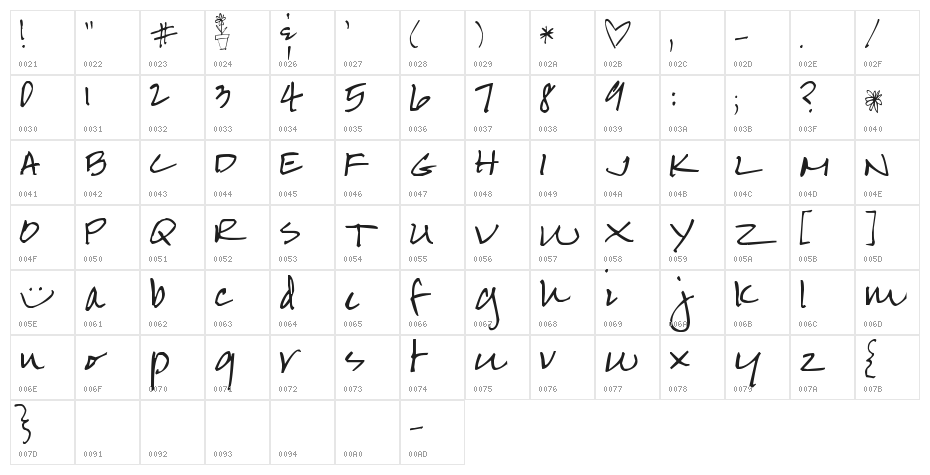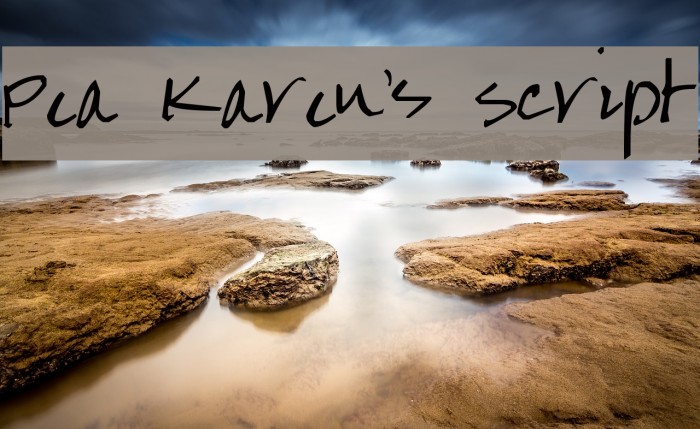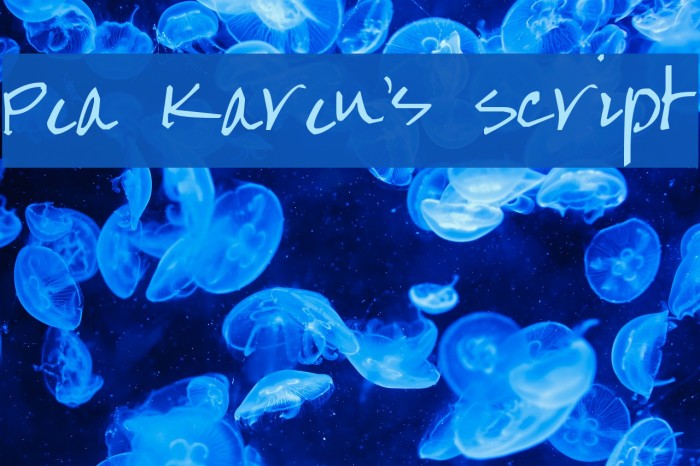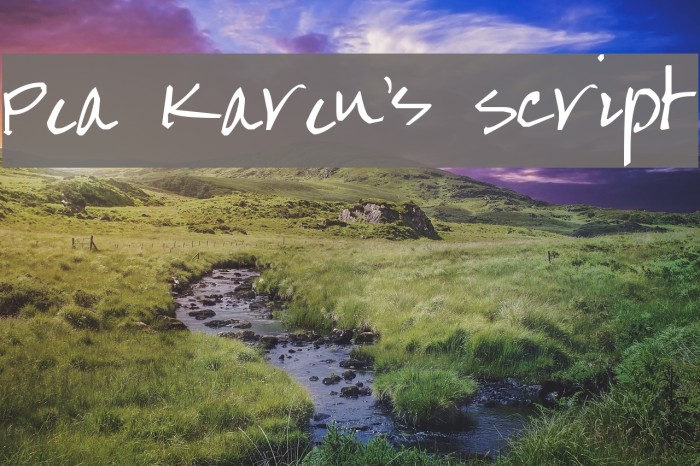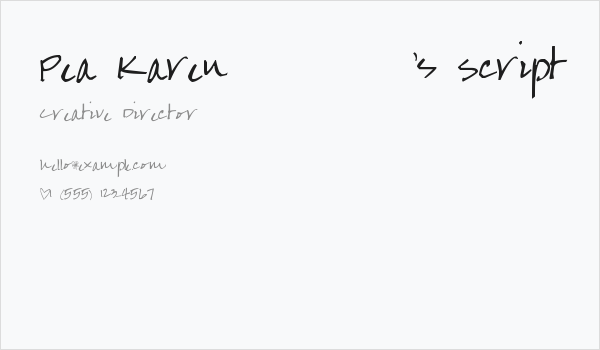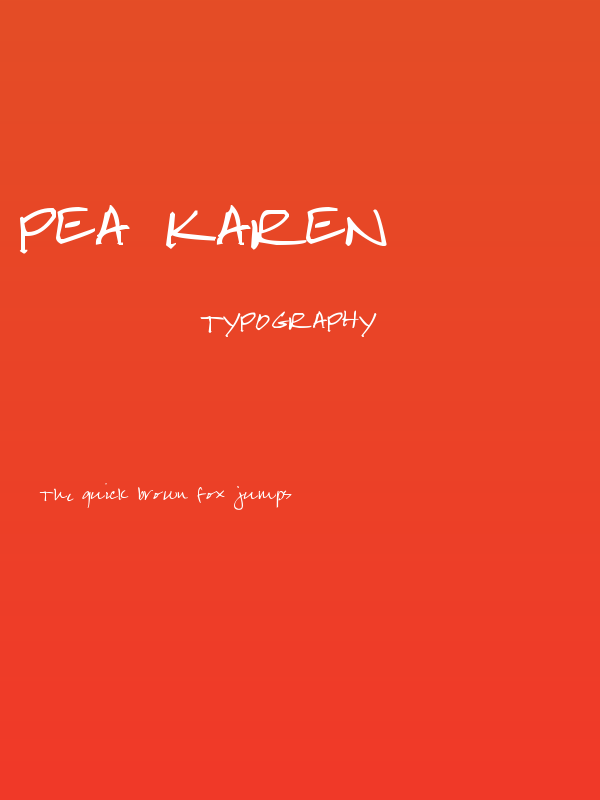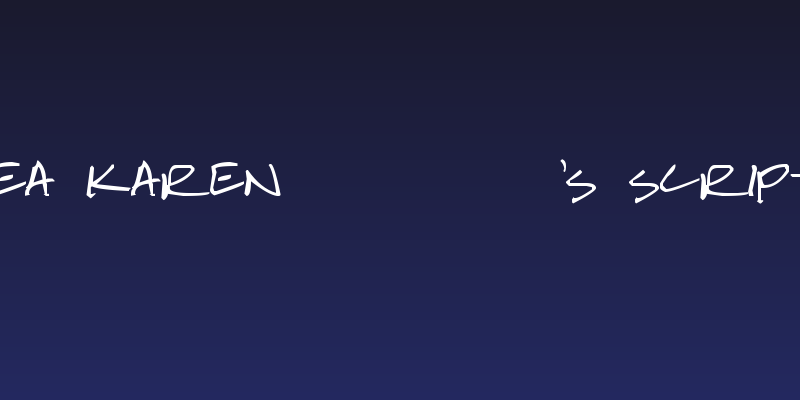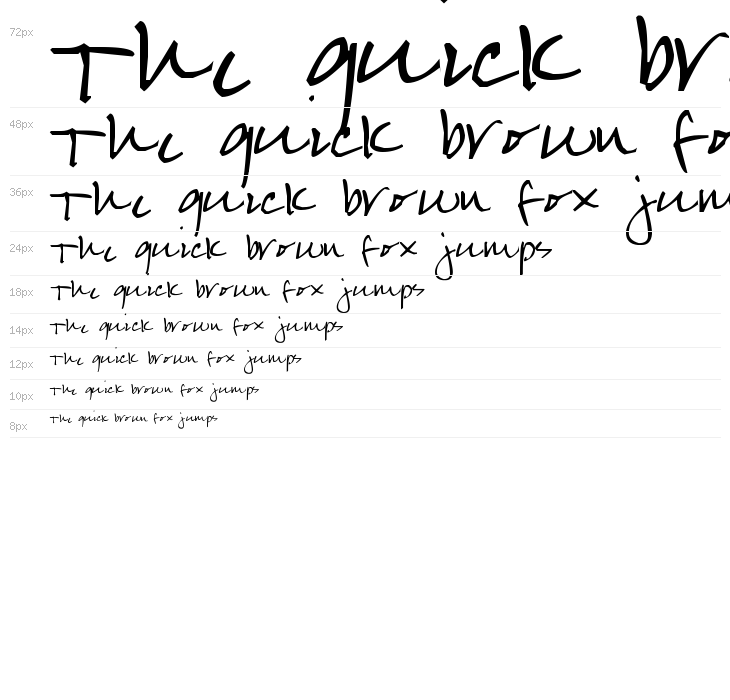
Pea Karen's Script Font
Pea Karen's Script Description
This font exudes a casual, handwritten style with a playful and personal touch. The characters are slightly slanted, giving an informal and dynamic appearance. The strokes are varied in thickness, adding to the handwritten feel, while maintaining legibility. The uppercase letters are bold and prominent, while the lowercase letters are more fluid and connected, resembling natural handwriting. The numerals and special characters maintain the same lively and informal style, making this font versatile for creative projects.
| Proposed Projects | Ideal for personal invitations, greeting cards, creative posters, and social media graphics where a personal touch is desired. |